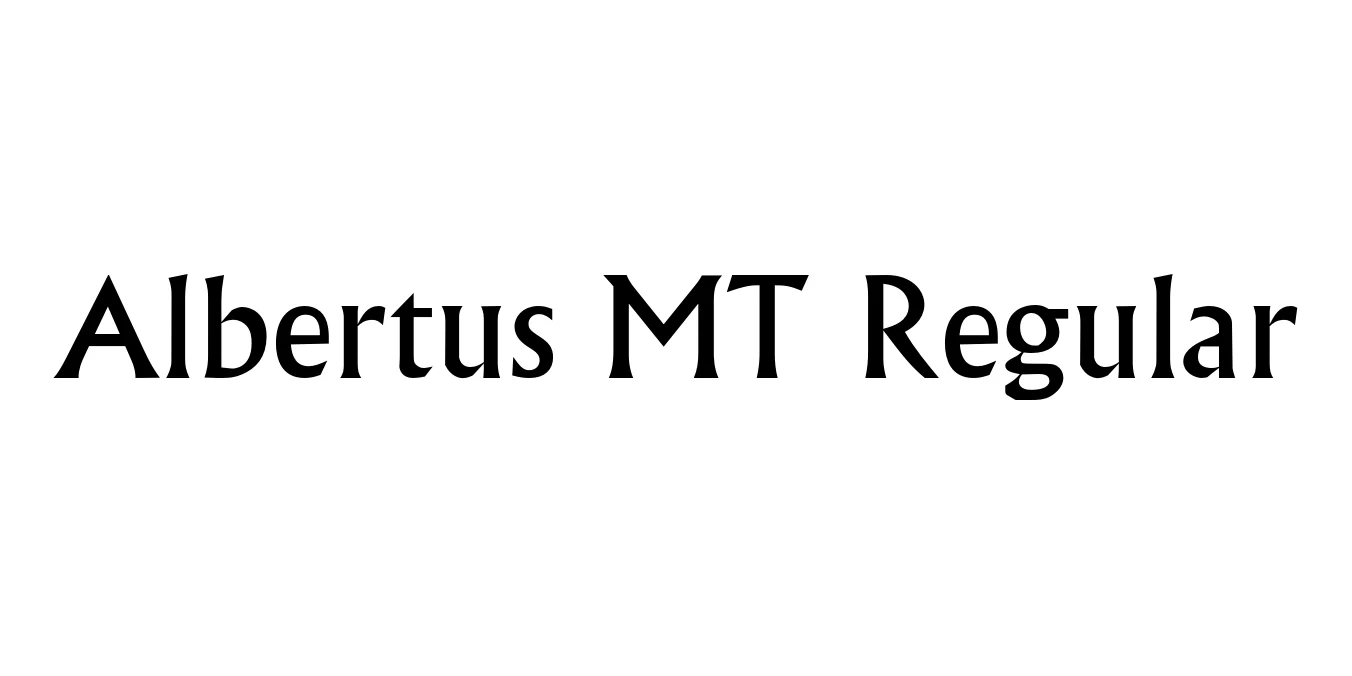
Albertus MT Regular
Designed by Berthold Wolpe
| Category | Glyphic Serif |
| Designer | Berthold Wolpe |
| Similar Fonts | Friz Quadrata, Optima, Trajan, Perpetua |
Designed by the renowned German-born calligrapher and designer Berthold Wolpe for the Monotype Corporation between 1932 and 1940, Albertus was named in honor of the 13th-century philosopher and scientist Albertus Magnus. The typeface's origins are deeply rooted in Wolpe’s background as a metalworker and stone carver; he originally hand-cut the characters in bronze. This 'incised' or glyphic approach distinguishes Albertus from traditional calligraphic serifs, resulting in a design that feels carved rather than drawn, which solidified its place as a cornerstone of 20th-century British graphic identity.
From a technical standpoint, Albertus MT Regular is defined by its flared terminals and remarkably sturdy visual weight, which avoids the fragility of hair-line serifs. The font features a relatively modest x-height paired with wide, open counters, ensuring high legibility even in challenging display environments. Its unique letterforms, such as the distinctive 'M' with its splayed legs and the narrow 'U', provide a rhythmic, monumental quality. The lack of traditional horizontal serifs allows the font to maintain clarity at various sizes, though it excels most brilliantly in titling and signage where its authoritative, chiseled character can be fully appreciated.
Albertus MT Regular Best Uses
Perfect for book covers and high-end magazine mastheads.
Widely used for film titles and television branding.
Ideal for institutional logos and premium product packaging.